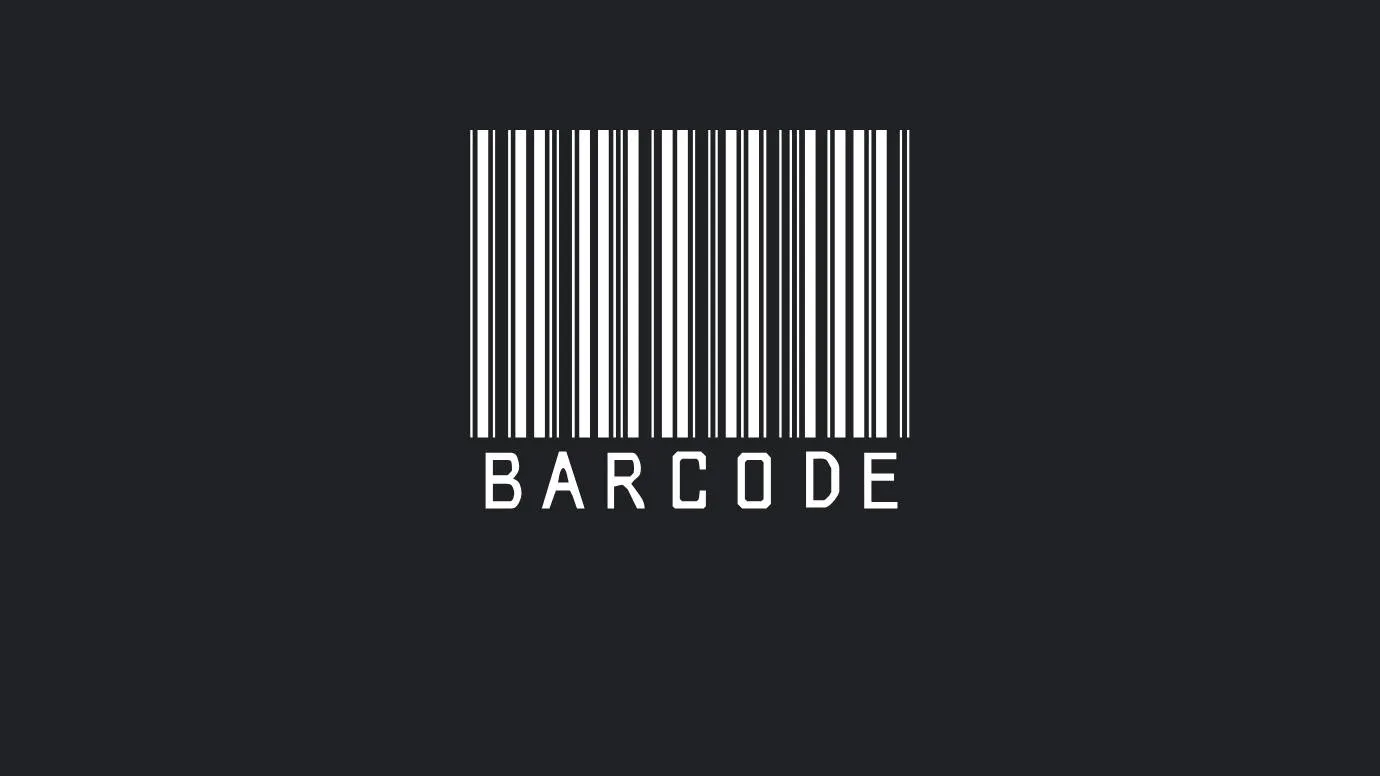
Barcode is a modern typeface that is available in a very cohesive look. This typeface lies in the classification of Dingbat types of fonts. This awesome typeface was developed and published by Anke-art. After releasing this typeface it gained popularity in a very short period.
Barcode Font Family
NameBarcode Font
TypeDingbats
DesignerAnke-art